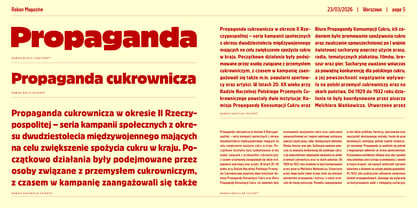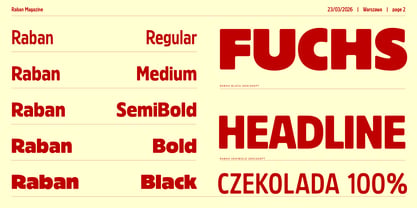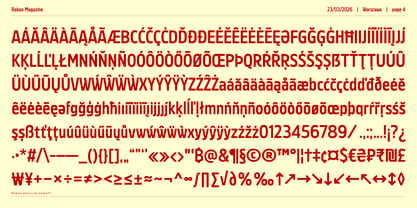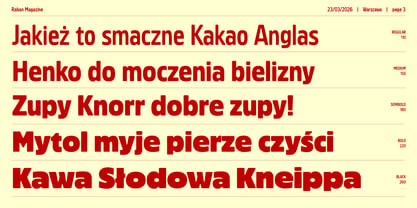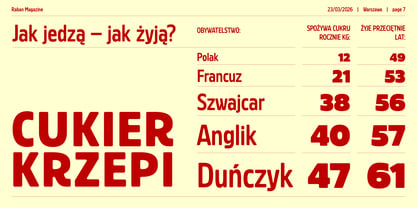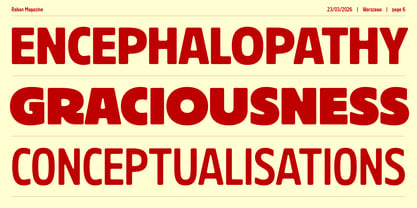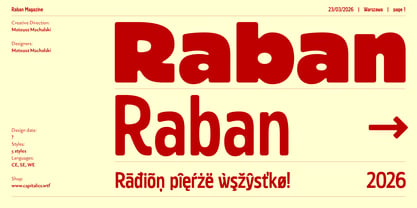
Raban
The Raban Font Family was designed by Mateusz Machalski and published by Machalski. Raban contains 5 styles and family package options. More about this family
Raban grows out of the logic of material, inspired by geometric wooden typefaces such as Blok and Rex. Through use, these forms naturally wore down, developing characteristic ink traps, rounded edges, and imperfections. Its structure is not classical: the weight axis is combined with the width axis, so the bold naturally expands letterforms, while the light becomes more condensed. This apparent lack of system “purity” is a deliberate decision, enabling strong typographic compositions built on contrast. Raban consists of five styles and is designed for impactful headlines and expressive visual communication. These typefaces have an undeniable character, they are not polished, and that is precisely their strength. Their expression comes from process rather than decoration. The project was creatively directed by Mateusz Machalski, with support from Małgorzata Bartosik.
Dr hab. Mateusz Machalski, Associate Professor (b. 1989) – Vice-Rector for Artistic Affairs at the Academy of Fine Arts in Warsaw. Designer, typographer, lecturer and researcher specializing in visual communication and graphic design. He graduated with Rector’s Honours from the Faculty of Graphic Arts at the Academy of Fine Arts in Warsaw (2009–2014), where he currently teaches at the Multimedia Artistic Creation Studio. Named Designer of the Year 2019 at the Polish Graphic Awards, he has been repeatedly awarded in national and international competitions, including KTR, Ascender 2018 – Type Directors Club New York, MUSTHAVE, The DieLine, Red Dot Design, The Best of Design 2018 – Klub Twórców Reklamy, and Animator 2020 – DESIGN ALIVE. He is a five-time recipient of the Polish Ministry of Culture’s scholarship, a laureate of the Ministry of Science and Higher Education’s scholarship for outstanding young researchers, and of the “Young Poland” programme by the National Centre for Culture. He was awarded the Centennial of Regained Independence Medal by the President of Poland. He is a curator and member of the programme board of the International Poster Biennale in Warsaw, and Art Director of the magazines newonce paper and Warsawholic. He has created more than 80 typeface families – including numerous corporate and multi-script designs – and over 200 visual identities for companies, institutions and cultural events. His fonts are distributed through platforms such as Google Fonts, Adobe and Monotype, and his clients include leading Polish and global brands. He has led teams digitizing key works of Polish typography, including “Półtawski Nowy”, “BRYGADA 1918” (launched at the Presidential Palace), and carried out the long-term “Bona Nova” project together with Andrzej Heidrich – the designer of Polish banknotes. He co-created Typoteka – the first Polish index of typography (1474–2024). Co-founder of the first Polish type foundry – Capitalics. He is also the author of numerous texts, articles and exhibitions on graphic design and visual culture, as well as the “Creative Typography” course published by Design Practice. He conducts research projects, workshops and lectures at universities and conferences in Poland and abroad.